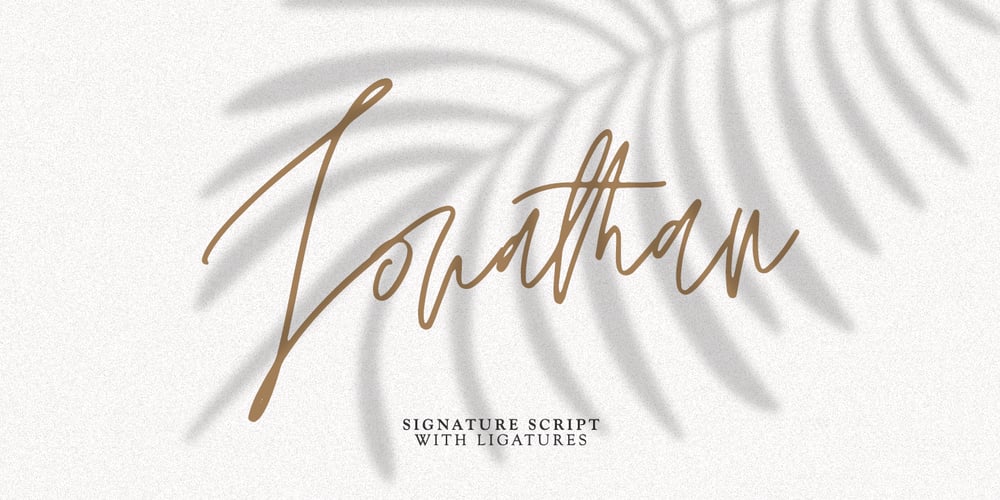
Jonathan Font Family was designed by Dmitrii Chirkov and published by Supfonts. Jonathan contains 1 styles and family package options. Hi everyone. This is my new signature style script. Any inscription will look like a natural stroke. This will give a unique look to your projects.Try my new font, it is lined with all the distances and it looks professional and at ease. It is ideal for signature or design, postcards and greetings, websites or blogs.Test it out below to see how it could look for your next project!Includes: Uppercase and lowercase Numbers and punctuation Foreign language support Ligatures Check out my blog: https://www.instagram.com/zloillev pinterest.com/dmitriychirkov7 Enjoy